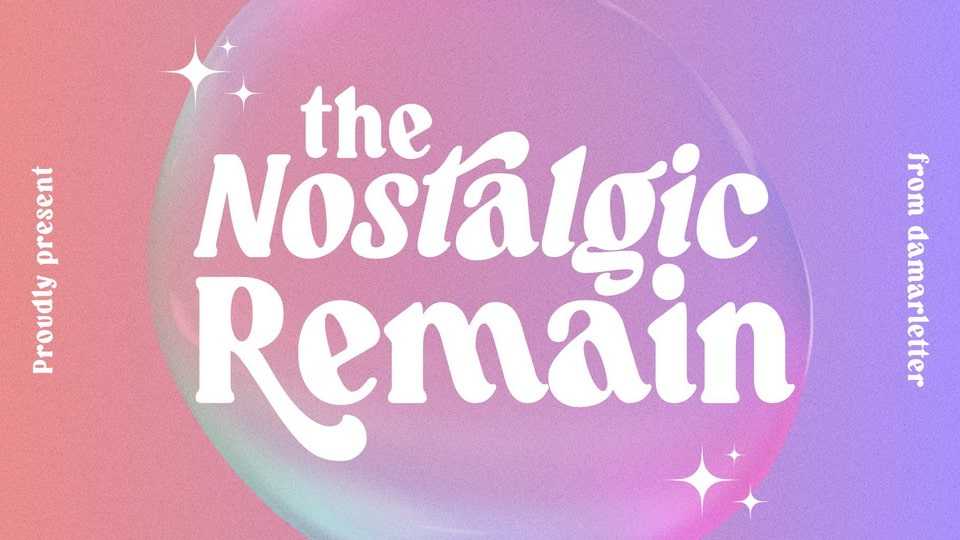
Download Nostalgic Remain font, a chic modern and timeless serif font that evokes a sense of nostalgia and old-world charm. Its elegant and refined letterforms are perfect for creating designs that require a touch of sophistication and tradition
Designer: Damarletter